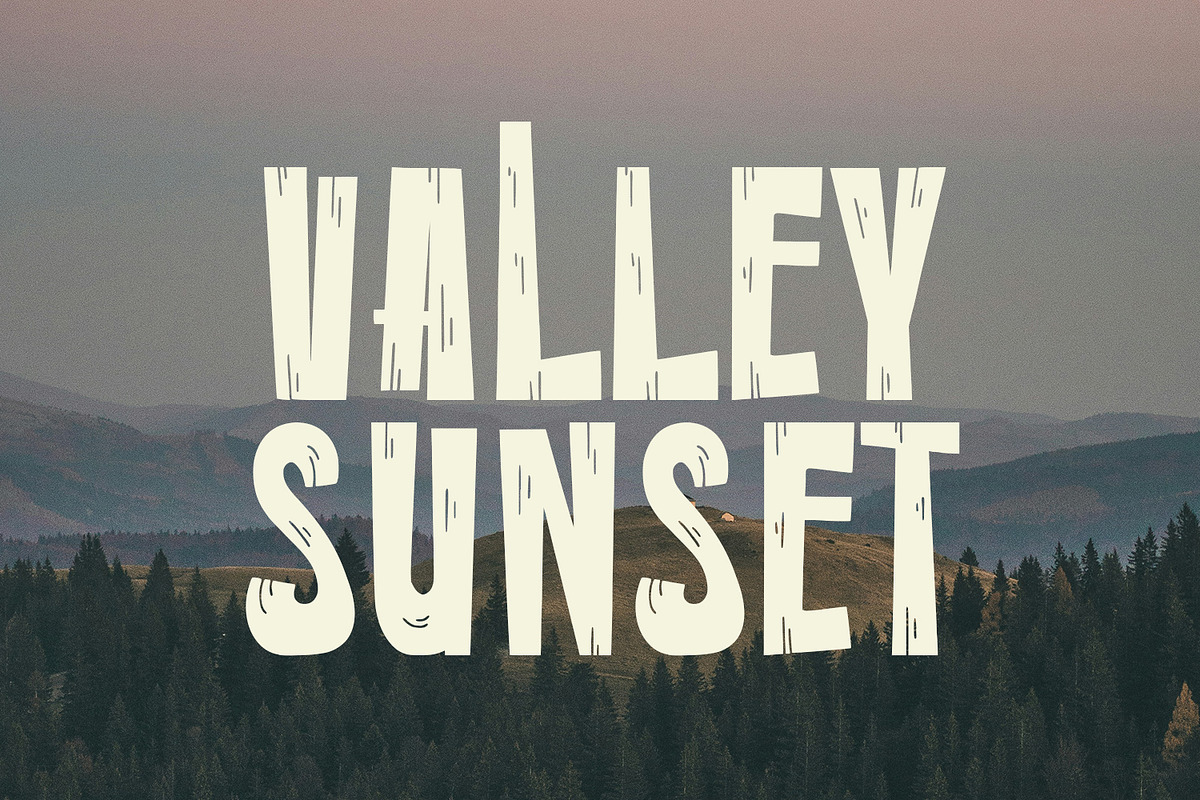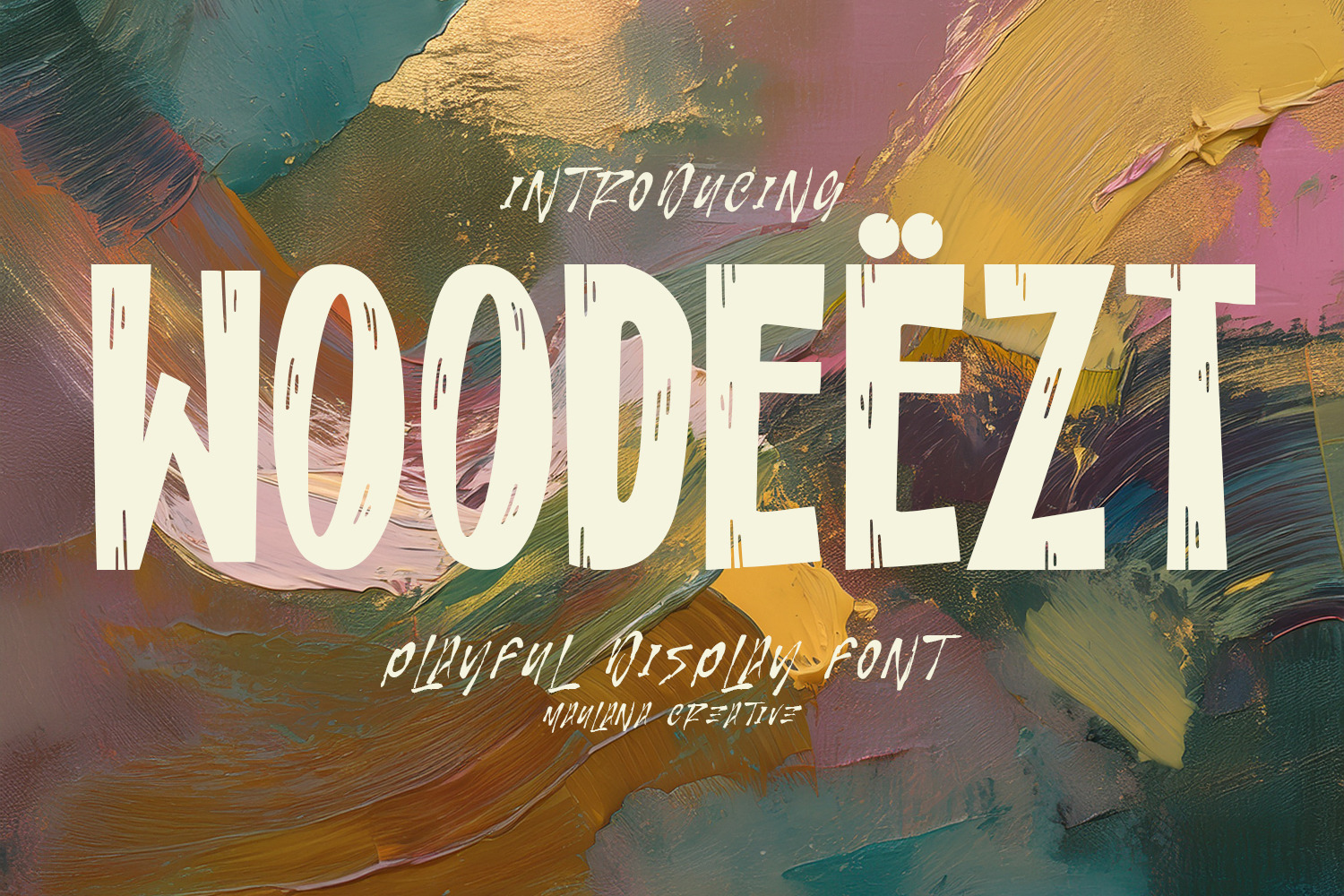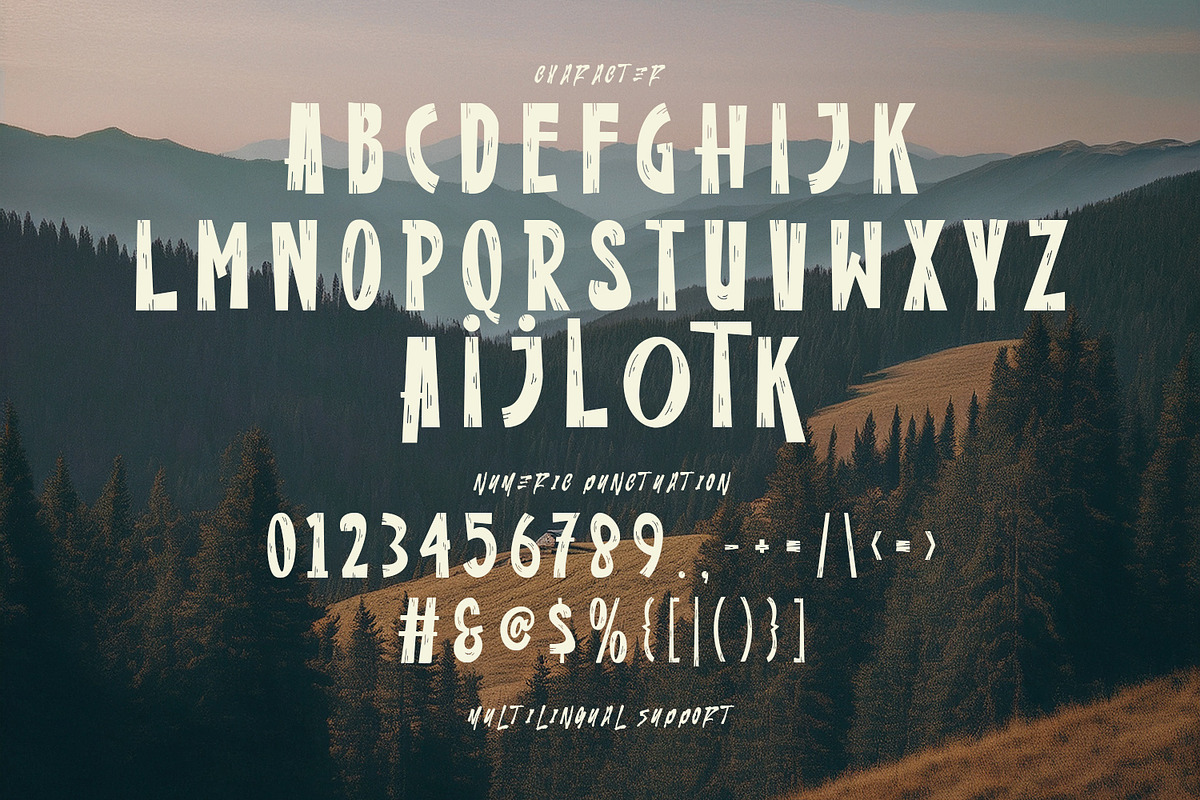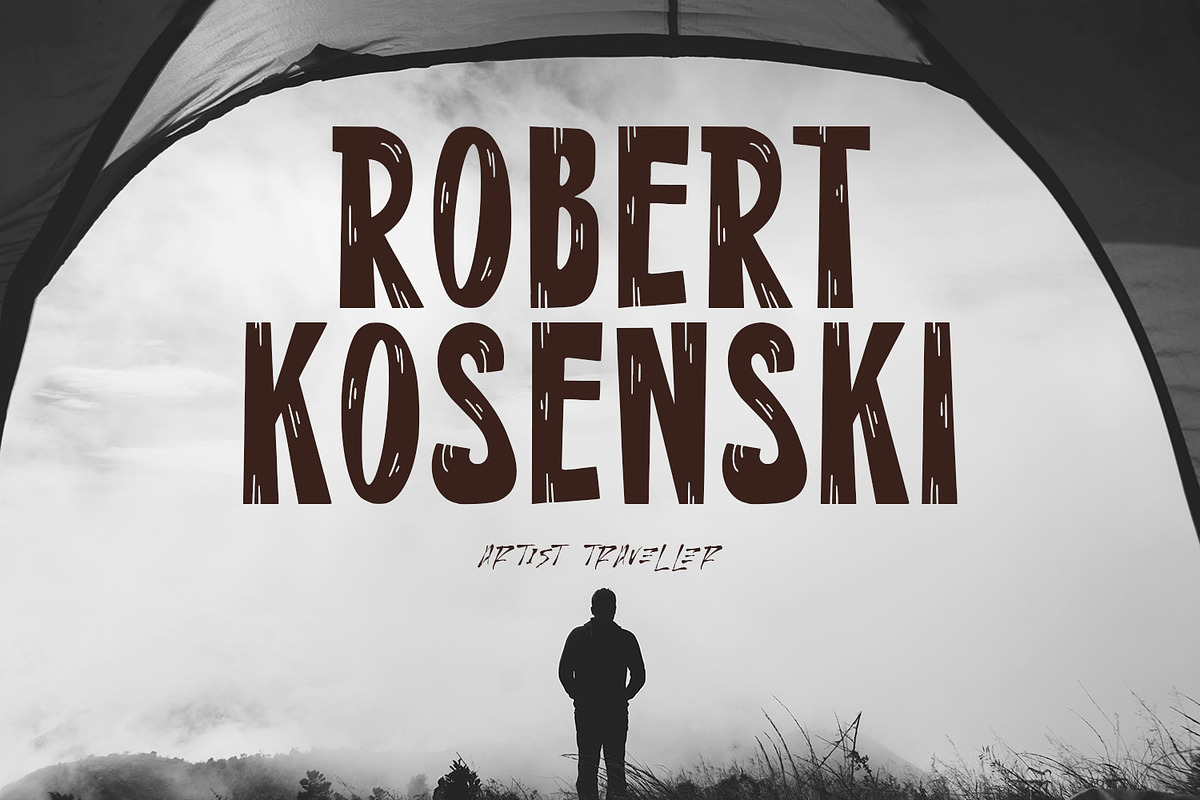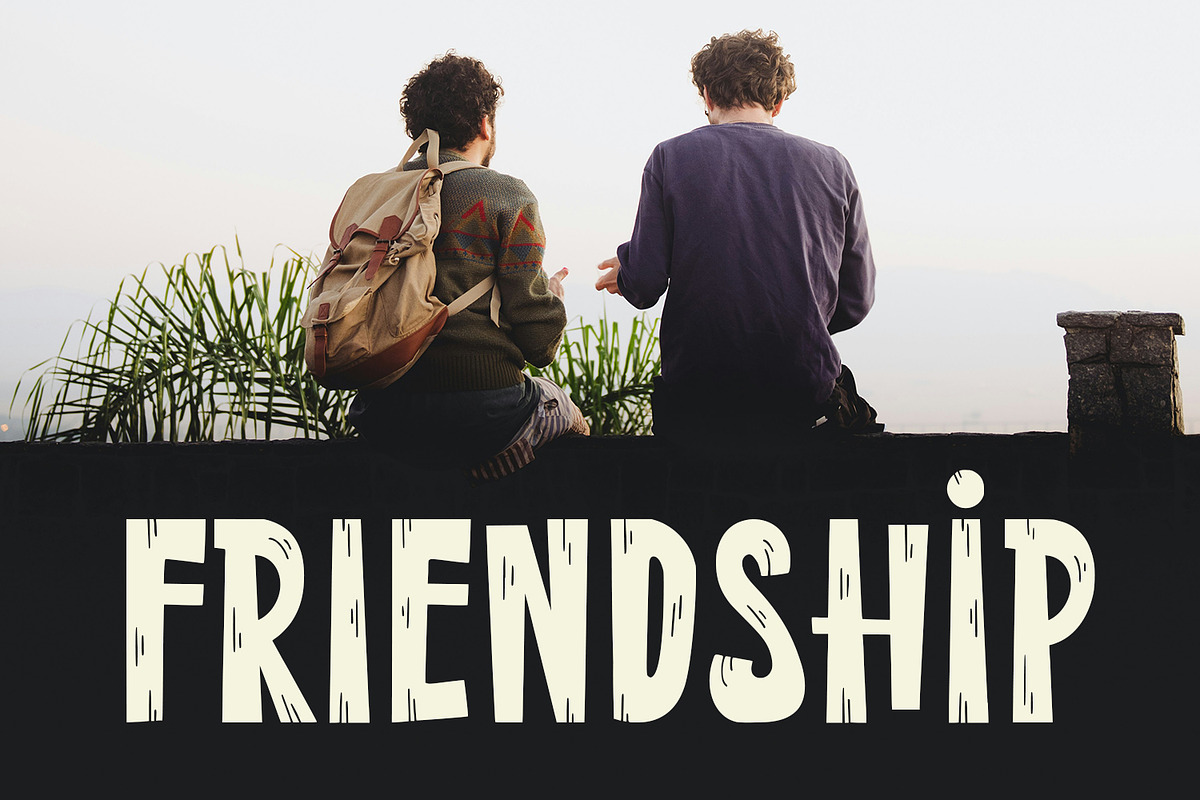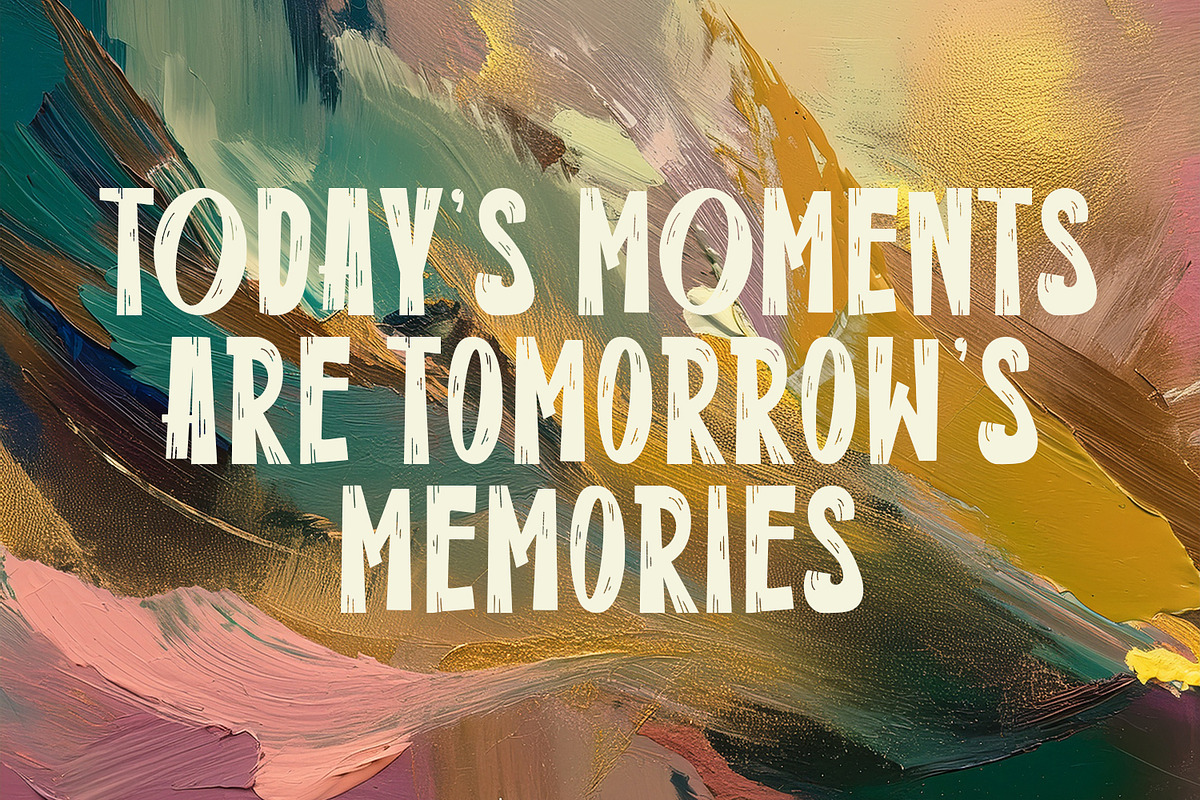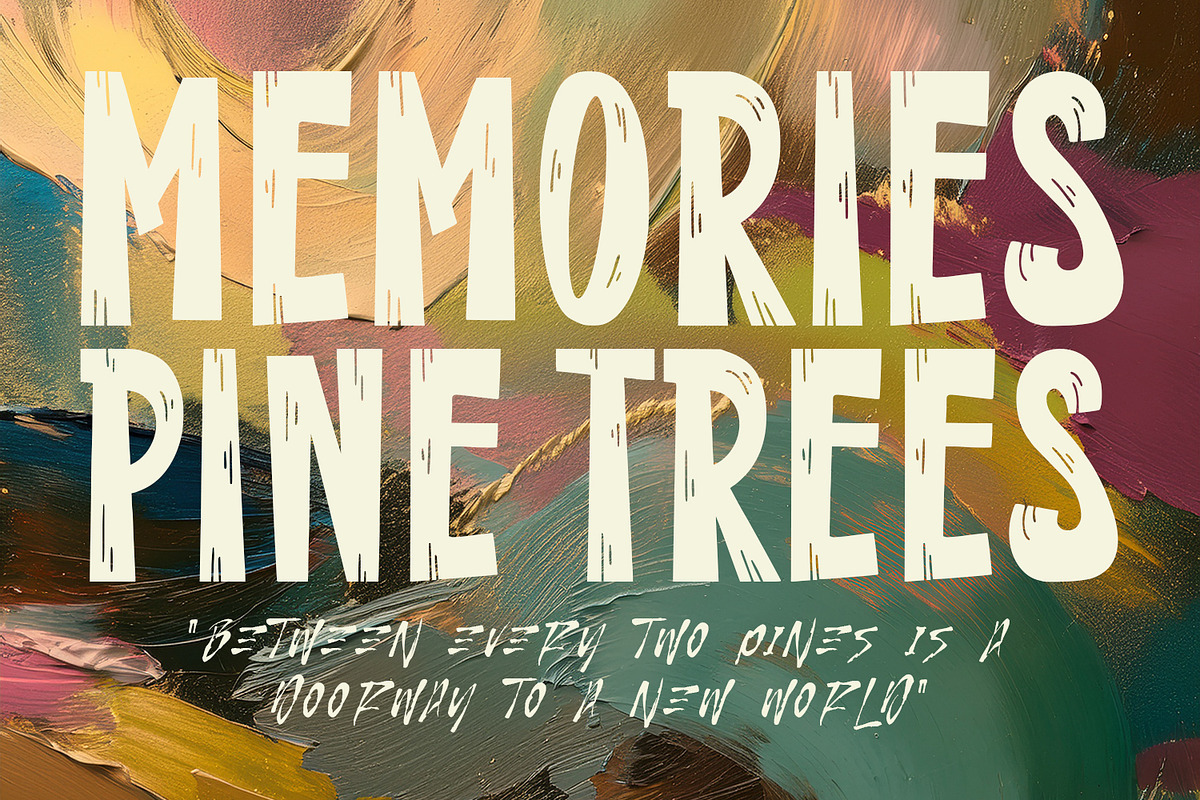
Woodeezt Bold Playful Display Font
Woodeezt is a bold and playful display font inspired by natural textures and wooden vibes. With its handcrafted look and quirky details, this font is perfect for creative projects that need a fun and adventurous touch. Whether you’re designing posters, branding, packaging, quotes, or social media graphics, Woodeezt brings a rustic yet modern charm that makes your text stand out. Its unique character shapes and textured cuts give the feeling of nature, exploration, and creativity, making it ideal for outdoor-themed designs, children’s projects, adventure branding, and lifestyle content. Woodeezt also supports multilingual characters, ensuring versatility for global use.